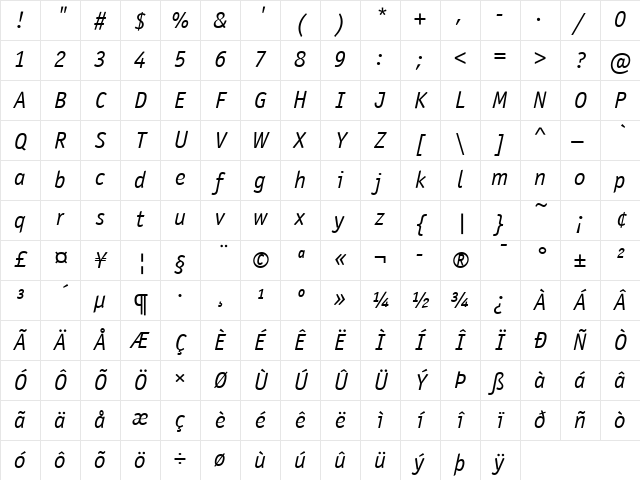
OfficinaSanITCBoo Italic
Design Context for OfficinaSanITCBoo
OfficinaSanITCBoo is a composed and adaptable typeface that performs quietly and consistently across a wide range of design contexts. The slanted form adds forward momentum and visual energy.
Pro Tip: Use OfficinaSanITCBoo for emphasis, pull quotes, and subheadings where its slanted energy can add rhythm to the layout.